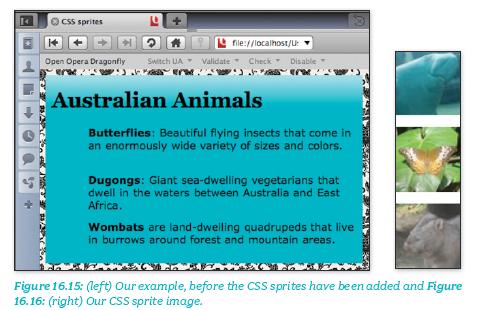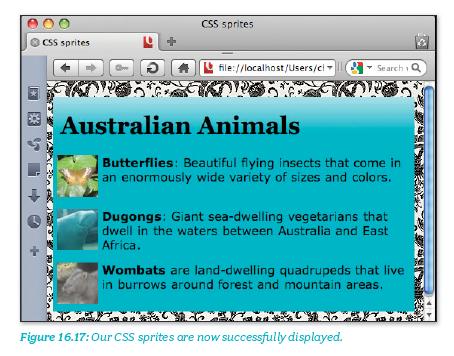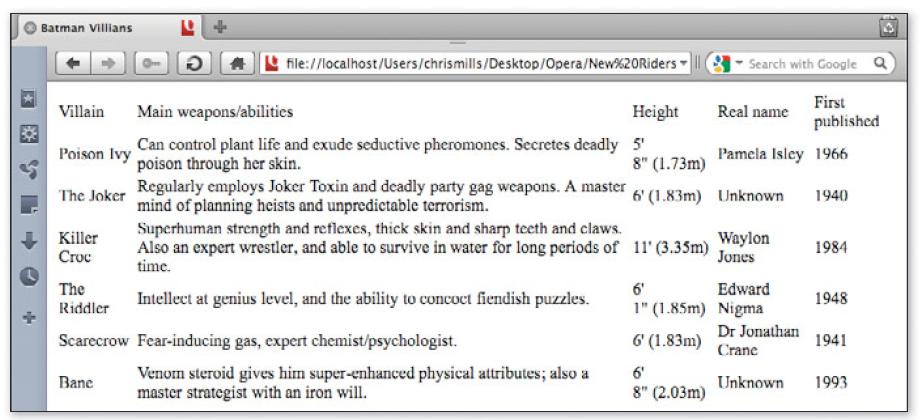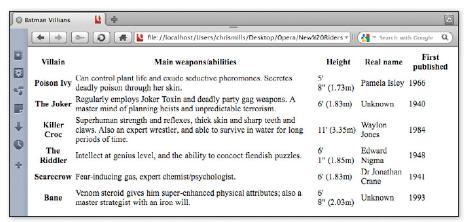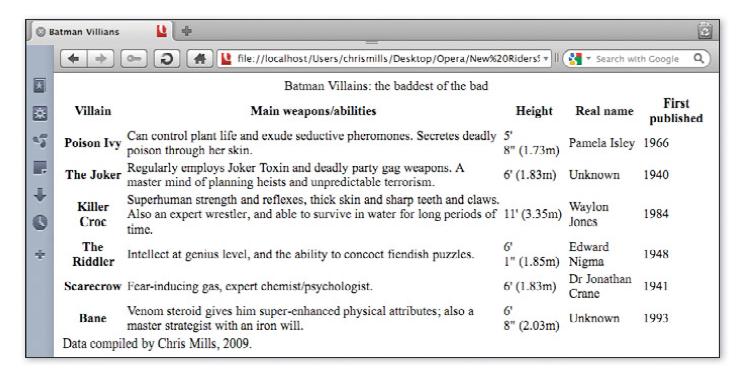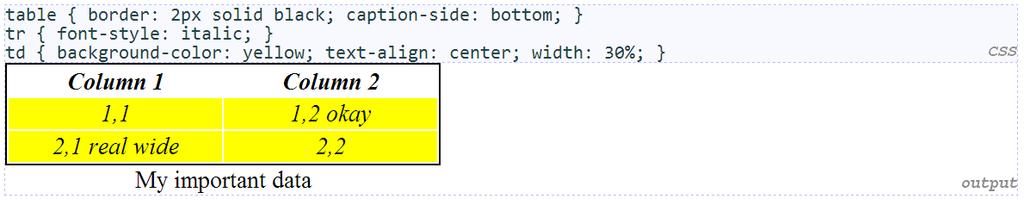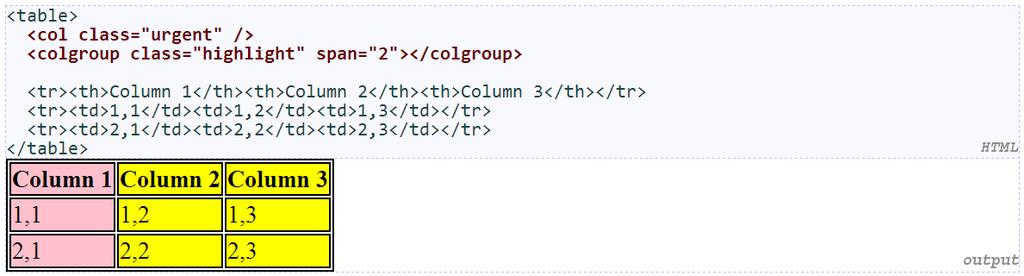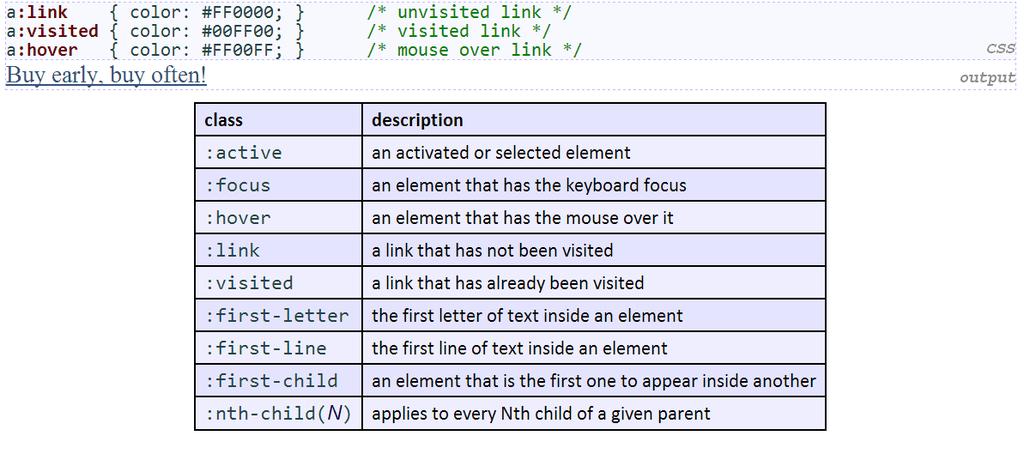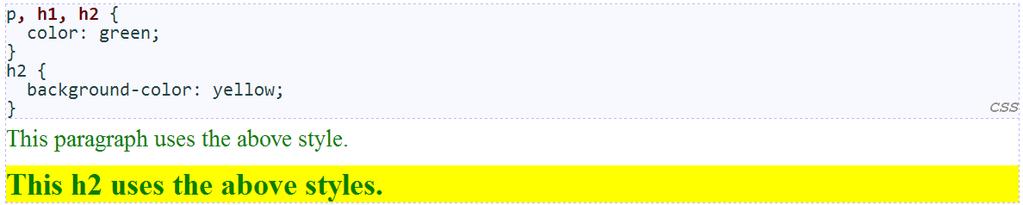
More CSS Syntax. Colors and Fonts. Color specification. CSS properties for colors. Χρώµατα και Γραµµατοσειρές. Κεφ. 3
1 More CSS Sytax Colors ad Fots Χρώµατα και Γραµµατοσειρές Κεφ. 3 CSS properties for colors Color specificatio 17 colour keywords ( Π.χ. p { color: red; property color backgroud-color descriptio color of the elemet's text color that will appear behid the elemet Guarateed to be displayable by all graphical browsers o all colour moitors black purple avy olive blue 0000FF gray gree silver C0C0C0 teal red FF0000 lime 00FF00 fuchia FF00FF aqua 00FFFF yellow FFFF00 maroo white FFFFFF orage FFA500(added i CSS 2.1) 3 4
2 Colors i CSS Hex values: you specify six hexadecimal values, two for the red, gree, ad blue chaels that make up each color, preceded by a # sig Each hex value has 16 possible values (0 to 9, the a to f). Each of the three color chaels (R, G, ad B) has a possible 256 values (16 x 16). So the total umber of possible colors you ca choose from is 256 x 256 x 256 = 16,777,216. p { color: #ff0000; RGB or RGBa: similar to Hex, except that you specify the values for R, G, Β i either decimal umbers or percetages (0-255 or 0%-100%): p {color: rgb(255, 0, 0); /* equiv to #ff0000*/ RGBa (CSS3): provides a way to specify also color trasparecy p {color: rgba(255, 0, 0,0.95); HSL/HSLa: stads for Hue (απόχρωση) Saturatio (κορεσμός) Lightess (φωτεινότητα) Hue: values from 0 to 360 Saturatio ad Lightess: values from 0 to 100% Examples: hsl(0, 100%, 50%) - Red hsl(60, 100%, 50%) - Yellow hsl(120, 100%, 50%) - Gree hsl(180, 100%, 50%) - Cya hsl(240, 100%, 50%) - Blue hsl(300, 100%, 50%) - Mageta/Purple 5 6 CSS properties for fots property fot-family fot-size fot-style fot-weight descriptio which fot will be used how large the letters will be draw used to eable/disable italic style used to eable/disable bold style Complete list of fot properties 8
3 Settig fots Fots ca be set usig the CSS fot-family property Prefer web-safe fots that are guarateed to be istalled across Widows, Mac, Liux Best practice: sas-serif fot for headigs (χωρίς πατούρα) serif fot for body text, for improved legibility take ito accout the target audiece of your site Times New Roma: better for serious ews Verdaa: might work better for text o a music or video game site p { fot-family: Helvetica; p { fot-family: "Trebuchet MS","Times New Roma", Georgia, serif; 9 More about fot-family ca specify multiple fots from highest to lowest priority geeric fot ames: serif, sas-serif, cursive, fatasy, moospace Serif fots have a small protrusio o the edge of a letter Serified fots are geerally believed to be easier to read o prited pages No-serified fots are thought to look cleaer o a computer scree Moospace fots take exactly the same width for each letter o the scree Variable-width fots are widely cosidered to be more pleasat to read except for certai cases (e.g. computer code) 10 Fot styles Five families of fots: sas-serif, serif, cursive, fatasy, moospace fot-family Parameters: style, variat, weight, size. Properties of CSS για τις γραμματοσειρές: fot-family fot-style fot-variat: specifies whether or ot a text should be displayed i a small-caps fot fot-weight: sets how thick or thi characters i text should be displayed. fot-size fot - to specify a list of fot properties (Order must be: style, weight, size, ame(s): fot: bolder 14pt Arial Times New Roma 11 eclose multi-word fot ames i quotes 12
4 Fot size To resize text you ca use the fot-size property It is recommeded that you use percetages or em s, ad ot pixels as fot-size uits Guidelie: Size the text relative to the default, istead of settig a absolute size irrespective of other settigs. Problem: if the desiger wats to icrease the geeral size of the whole page, idividual elemets sized usig pixels will stay the same size, ad start to look out of proportio. em is a scalable web measuremet uit that is always equal to the curret documet fot size E.g. if a default fot size of 16px is curretly beig used for paragraphs, 16px is equal to 1em. Settig a fot size of 2 em s will always make the fot double the default size (2 em s is equal to settig the size as 200%) 14 fot-size fot-weight, fot-style uits: pixels (px) vs. poit (pt) vs. m-size (em) 16px, 16pt, 1.16em vague fot sizes: xx-small, small, medium, large, x- large, xx-large, smaller, larger percetage fot sizes, e.g.: 90%, 120% either of the above ca be set to ormal to tur them off (e.g. headigs) 15 16
5 Embeddig Fots Groupig styles I CSS3 you ca embed fots ito your web page Makig sure that all users ca see the page properly i ay fot they like Usig { fot-family: Kimberley ; src: url( ) format( TrueType ); p { fot-family: Kimberley, Helvetica, sas-serif; fot-size: 1.5em; a style ca select multiple elemets separated by commas the idividual elemets ca also have their ow styles (like h2 above) 19 20
6 Typical stylig without CSS Text, Backgroud, Tables Κείµενο, Παρασκήνιο, Πίνακες Geeral text stylig The lies of text are too log to read ad ueve Τhe headig levels are ot that easy to differetiate betwee Τhe default typeface makes it look very like the Web of the 90s. The way the page looks by default is determied by the default browser styles that are beig applied. These will differ somewhat across browsers, but the effect is always pretty much the same. We ca make thigs better with some simple CSS styles. Let s look at the stylig ow. 23 Lie legths Geeral guidelie: make your text colums about characters i legth for easier readig Use the width property: fixed (static) width: legth property is assiged value i px dyamic (fluid) width: legth property is assiged value i percetage (%) ad text takes the same proportio of the browser widow width elastic: relies o legth defied usig ems, which are related to the size of the text - ot so ofte used width: 500px; width: 60%; #mai_cotet { width: 50%; #mai_cotet { width: 50%; mi-width: 300px; max-width: 600px; 24
7 Other typesettig properties lie-height specifies the height of each text lie (just the lie the text sits o; ot the text itself), i whatever uit you choose. text-trasform trasforms the textual cotet of a elemet. capitalize (capitalizes all words) lowercase (makes all letters lowercase) uppercase (makes all letters uppercase). text-decoratio specifies differet types of decoratio o the textual cotet of a elemet. blik (makes the text blik o ad off) uderlie (draws a lie uder the text) overlie (draws a lie above the text) lie-through (draws a lie through the text) 26 CSS properties for text text-alig property descriptio text-alig aligmet of text withi its elemet text-decoratio decoratios such as uderliig lie-height, word-spacig, text-idet gaps betwee the various portios of the text idets the first letter of each paragraph Complete list of text properties ca be left, right, ceter, or justify (which wides all full lies of the elemet so that they occupy its etire width) 27 28
8 text-decoratio CSS properties for backgrouds property descriptio ca also be overlie, lie-through, blik, or oe backgroud-color backgroud-image color to fill backgroud image to place i backgroud effects ca be combied:text-decoratio: overlie uderlie; backgroud-positio backgroud-repeat placemet of bg image withi elemet whether/how bg image should be repeated backgroud-attachmet whether bg image scrolls with page backgroud shorthad to set all backgroud properties backgroud-image backgroud-repeat backgroud image/color fills the elemet's cotet area ca be repeat (default), repeat-x, repeat-y, or o-repeat 31 32
9 backgroud-positio Image Replacemet The umber of fots commoly available across platforms, presets a certai limitatio to desigers o the Web. value cosists of two tokes, each of which ca be top, left, right, bottom, ceter, a percetage, or a legth value i px, pt, etc. value ca be egative to shift left/up by a give amout You could create your text i a graphics editor with the fot you desire ad put it o your site as a image but this presets a accessibility ad search egie idexig problem Oe commo solutio that solves both problems is Image Replacemet (IR) put your text i place o your site attach a backgroud image to that elemet cotaiig the text displayed exactly as you d like it, ad use CSS trickery to shut the HTML text off the edge of the scree CSS Sprites If you have a lot of images o your site that are the same size you ca put them i a sigle file (oe log strip of icos) so that oly oe dowload is required. As well as savig o file size, this cuts dow cosiderably o the umber of HTTP requests required. To iclude the images i your pages, you ca use the backgroud properties of HTML elemets. How to cotrol which idividual ico is displayed? Vary the backgroud-positio property: a differet portio of the sigle image is displayed i that part of the page. Make sure that the cotaier the image is attached to (be it a <div>, <p>, etc.) i the HTML is sized with the correct dimesios to cotai the sprites. 36
10 HTML Tables Fuctioality: orgaise ad preset data i tabular format. To create a table i HTML, you eed to use three elemets: <table>: Wraps the etire table; defies it as a data table <tr>: Defies each row of the table <td>: Cotais the cotet of each sigle table cell multiple <td>s are foud iside each <tr> Tables were used as a way of typesettig ad aligig of cotet iside Web pages but this is a bad practice that should be avoided: This was doe because CSS lacked cosistet support across browsers, ad usig table cells was see as a easier optio for cross-browser layouts. 40